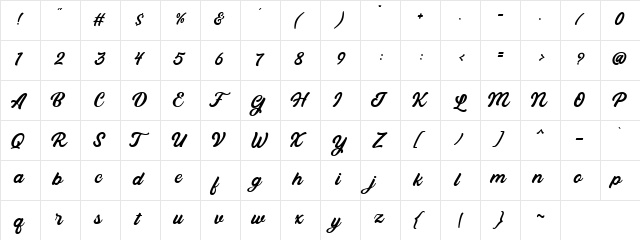
Bandira Script DEMO Regular
| Designer | Gustian Agung Asprilla |
Design Context for Bandira Script DEMO Typeface
Bandira Script DEMO flows with the natural rhythm of handwritten lettering, making it ideal for designs that call for warmth and personal expression.
Font Pairing: Combine Bandira Script DEMO with a simple geometric sans for maximum contrast — the tension between flowing curves and clean structure is a classic typographic pairing.
Pro Tip: Use Bandira Script DEMO for short runs of text — names, titles, or taglines. Extended body copy in script faces tires the eye quickly.